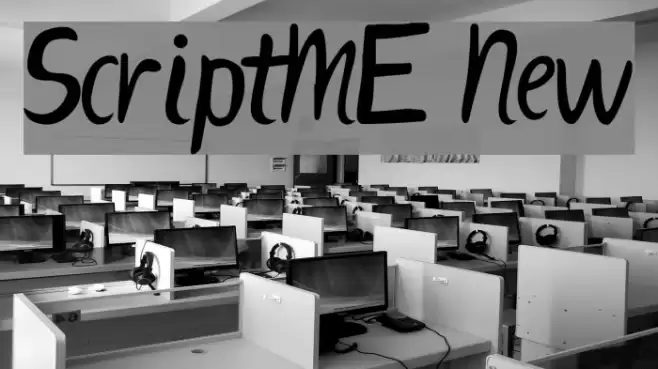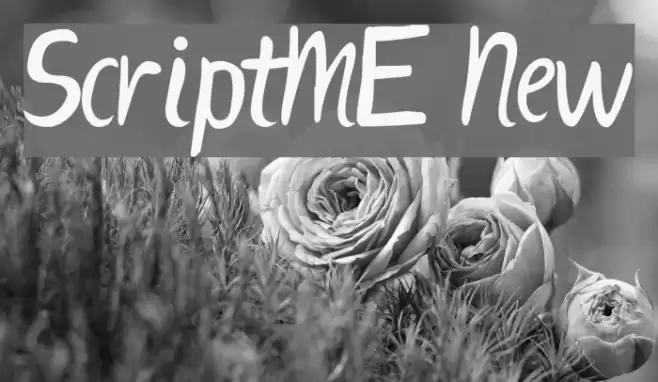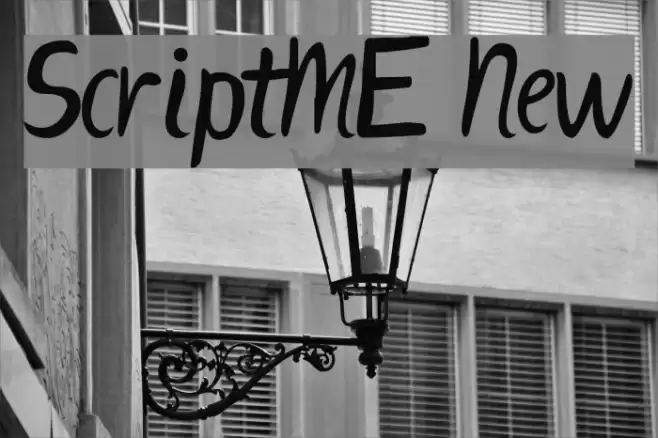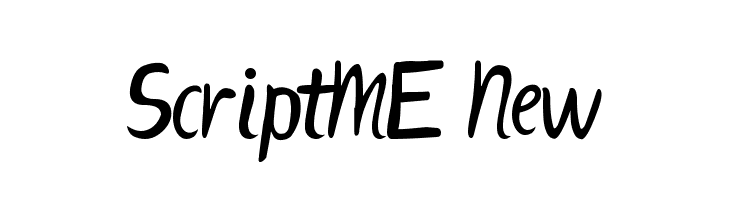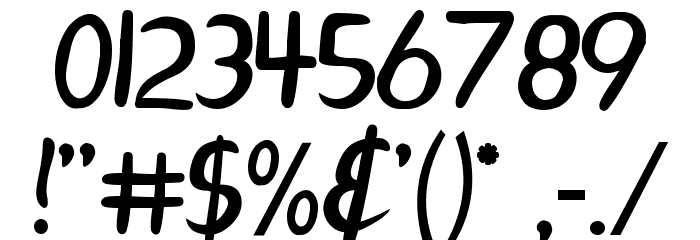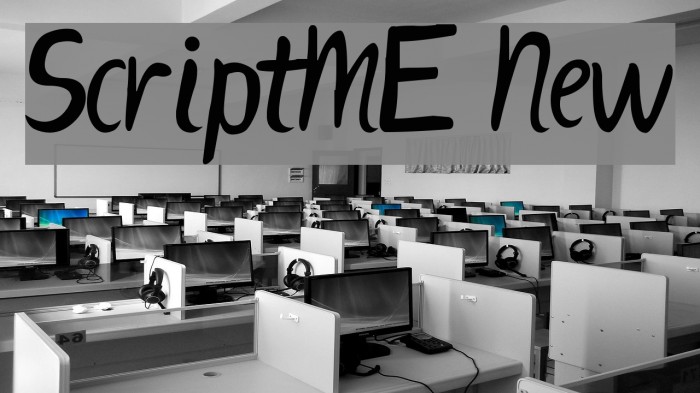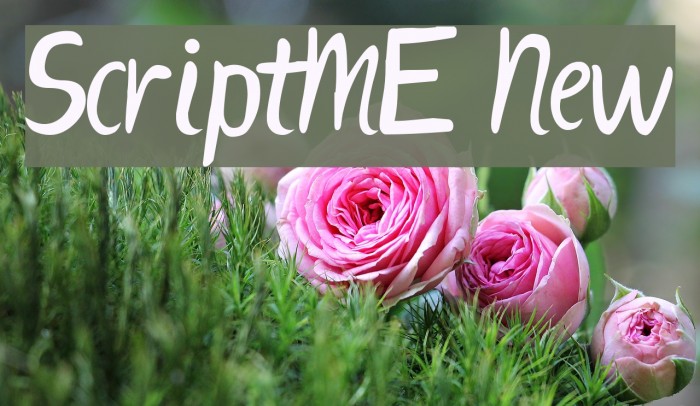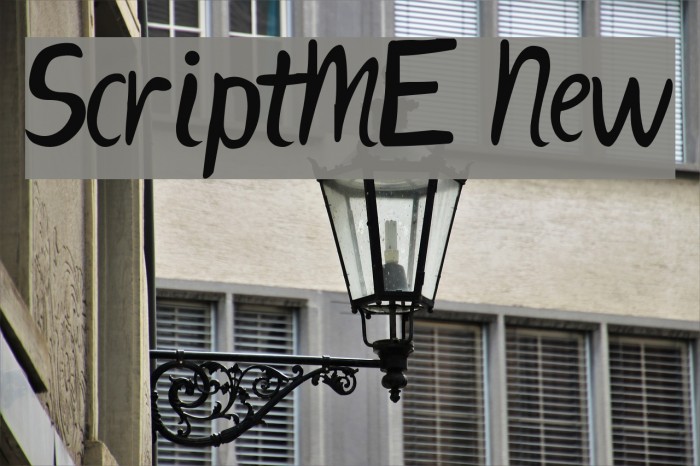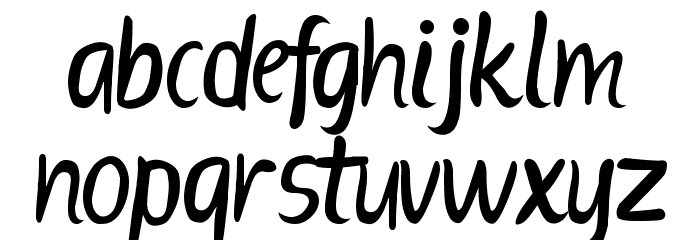
ScriptME New Font
ScriptME New Description
This font features a playful and dynamic script style with a handwritten appearance. The characters are slightly slanted, giving a sense of motion and fluidity. The strokes are bold and consistent, with a smooth flow that enhances readability. The uppercase letters are distinct and slightly larger than the lowercase, maintaining a balanced proportion. Numbers and special characters are designed to match the overall style, ensuring uniformity across all elements. This font exudes a casual and friendly vibe, making it suitable for various creative applications.
A playful, handwritten script font with bold strokes and a dynamic style from Uncategorized fonts.
- Proposed Projects: Ideal for greeting cards, invitations, playful branding, and social media graphics.
- Overall Style: Casual
- Use Case: Logos, Headlines, Invitations